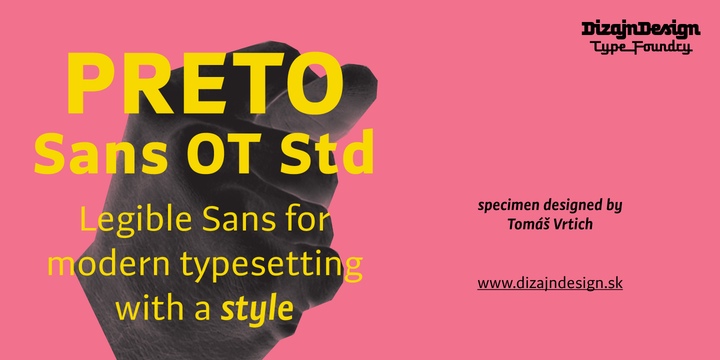
Preto Sans OT Std Font
Preto Sans OT Std Font is perfect for modern tech company branding, minimalist web design, mobile app interfaces, corporate annual reports, clean signage systems, editorial magazines, professional presentations, healthcare branding, educational materials, and contemporary advertising campaigns. This sleek typeface excels in applications where clarity, modernity, and sophisticated simplicity are fundamental design requirements.
What makes Preto Sans OT Std Font exciting is its refined geometric construction combined with subtle humanist characteristics that create exceptional legibility without sacrificing contemporary appeal. The font features perfectly balanced letterforms with optimal spacing and clean lines that perform beautifully across digital screens and print media. Its systematic approach to character design ensures consistent brand communication while providing the flexibility needed for complex typographic hierarchies and multilingual applications.
The Preto Sans OT Std Font family typically includes comprehensive weight options ranging from Thin to Black, with matching italic variations that expand creative possibilities. The OpenType Standard version offers extensive character support including small capitals, tabular figures, fractions, superior characters, and extensive punctuation marks. Advanced OpenType features such as stylistic alternates, contextual ligatures, and professional kerning ensure optimal typography performance across all applications and languages.
Whether you're creating cutting-edge digital experiences, developing corporate visual identities, or designing editorial content for modern audiences, Preto Sans OT Std Font Free Download delivers the contemporary sophistication that forward-thinking brands demand. Its versatile nature makes it equally effective for large display applications and extended reading experiences. The font's ability to convey innovation while maintaining accessibility makes it particularly valuable for organizations operating in competitive markets where clear communication and brand differentiation are essential for sustained success.